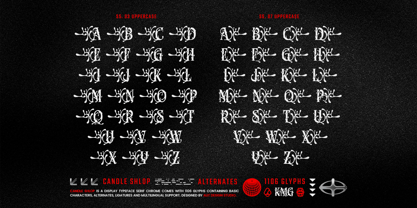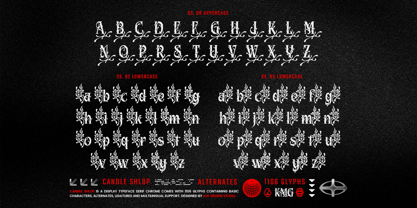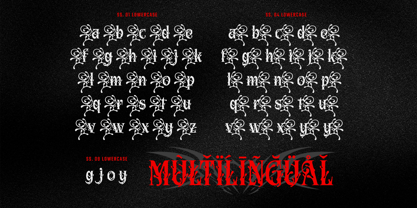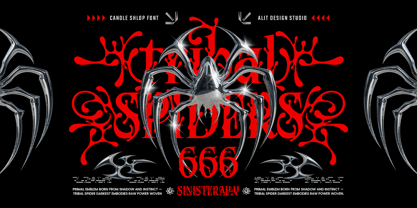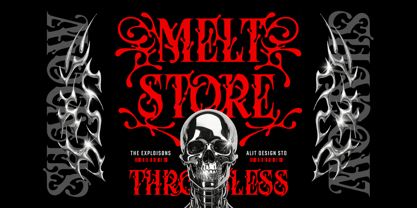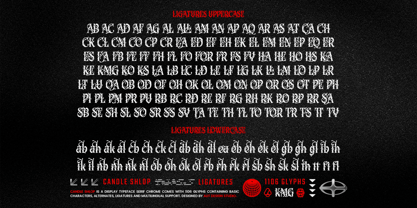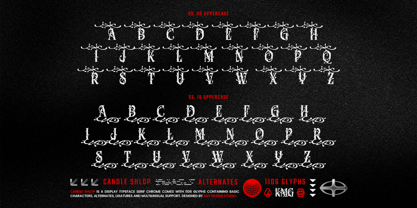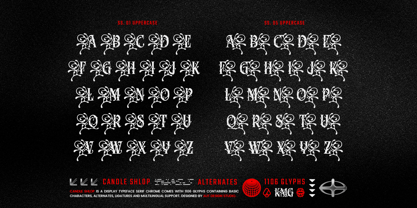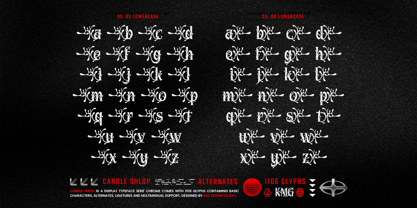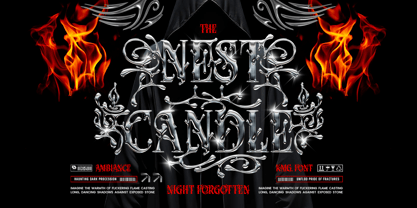
Candle Shlop
by Alit Design
The Candle Shlop Font Family was designed by Alit Suarnegara and published by Alit Design. Candle Shlop contains 1 styles. More about this family
Candle Shlop Typeface: The Fluid Future of Chrome Typography Introducing Candle Shlop, a groundbreaking display typeface that seamlessly fuses classical serif elegance with a highly futuristic, molten metal aesthetic. Designed for creators who want to push the boundaries of modern typography, Candle Shlop features striking letterforms crafted to look like flowing liquid chrome. The result is a highly fluid, dimensional, and dripping texture that brings an aggressive yet refined edge to any canvas. Whether you are channeling a dark, Y2K-inspired cyber aesthetic or looking to add a visceral, melting effect to your typography, Candle Shlop delivers unparalleled visual impact. Key Features & Typographic Power Built for maximum versatility and professional use, Candle Shlop is an absolute powerhouse for custom typography: Massive Glyph Arsenal: Comes fully loaded with 1106 glyphs, providing endless possibilities for custom typographic compositions. Extensive Stylistic Alternates: Features a sprawling range of stylistic sets (up to SS10 for Uppercase and SS09 for Lowercase). You have total control over the "drip" and flow of your text, allowing you to tailor the viscosity and detailing of every single word. Custom Ligatures: Includes a comprehensive collection of both uppercase and lowercase ligatures, ensuring your flowing letterforms interlock seamlessly for a custom-lettered look. Global Reach: Full multilingual support to ensure your aggressive aesthetic translates flawlessly across global projects. Complete Character Set: Includes basic uppercase, lowercase, numerals, and a full range of punctuation. Perfect For: Y2K, Cyberpunk, and Futuristic Branding Streetwear Apparel and Merchandise Design Music Industry Artwork (Album Covers, Band Logos, Gig Posters) High-Impact Editorial Layouts and Magazine Covers 3D / Chrome Typographic Poster Designs Inject your next project with the heavy, dripping elegance of liquid metal. Candle Shlop Typeface is ready to melt expectations.
Designers: Alit Suarnegara
Foundry: Alit Design